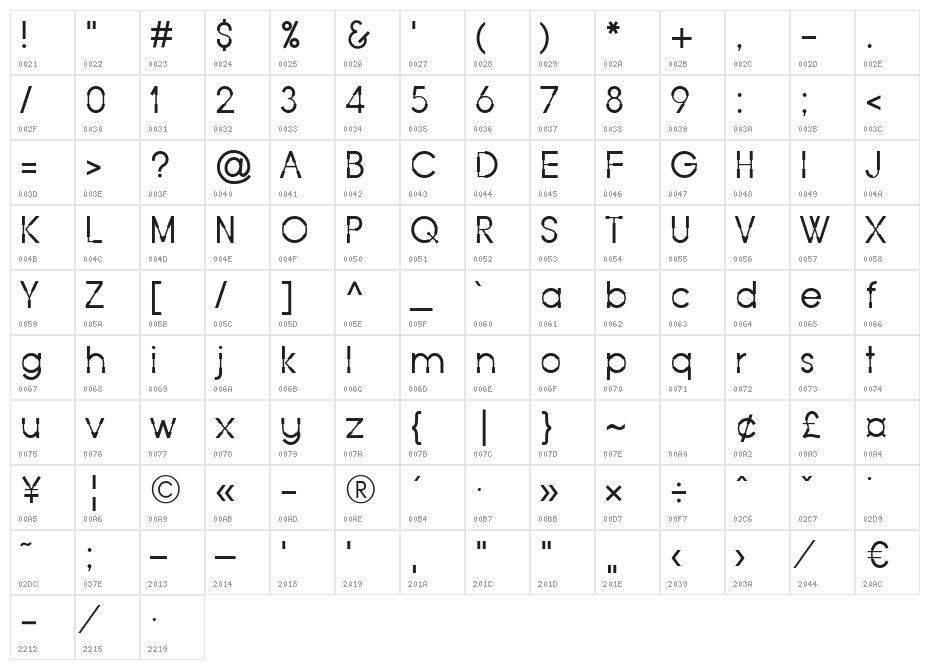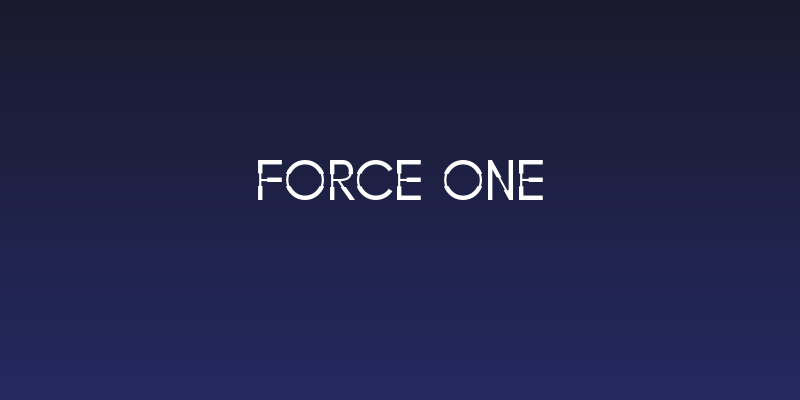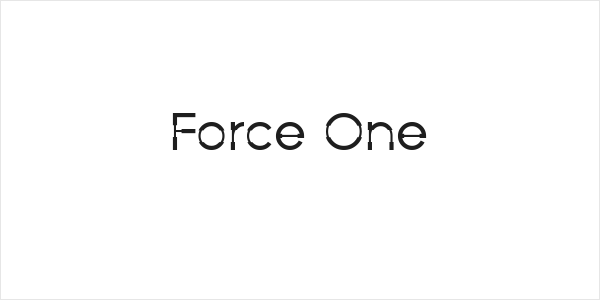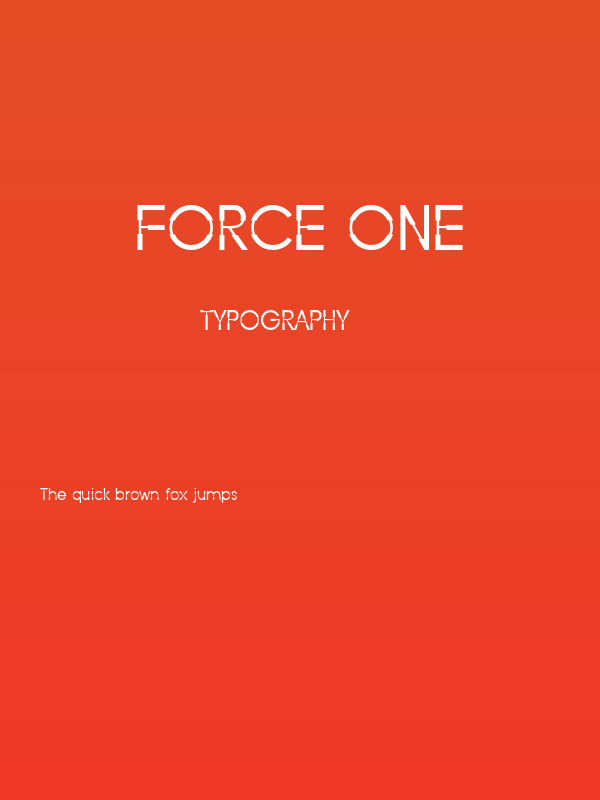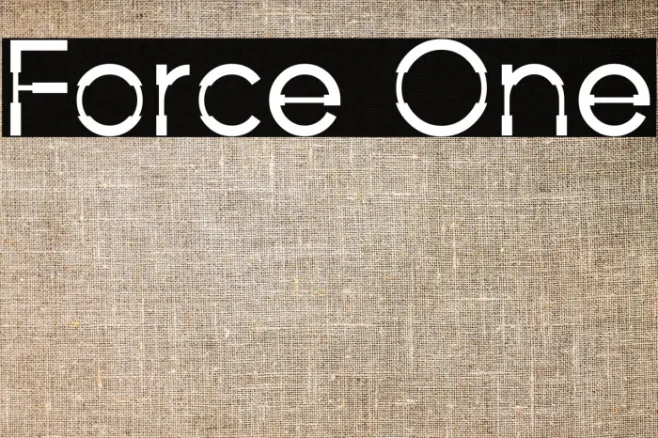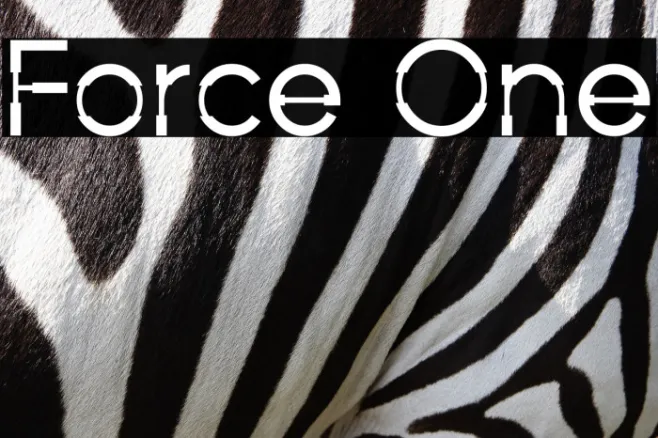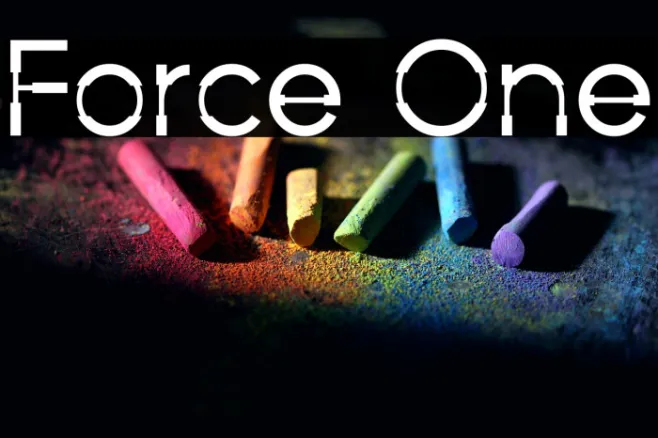
Force One Font
Force One Description
This font features a modern and geometric design with a distinct, futuristic appeal. The characters are constructed with clean, straight lines and sharp angles, giving it a technical and precise look. The uppercase letters are bold and commanding, while the lowercase letters maintain a consistent style with slightly softer edges. The numerals are clear and easy to read, following the same geometric principles. Special characters are uniquely styled, adding to the font's overall distinctiveness. This font is ideal for projects that require a contemporary and edgy aesthetic.
| Use Case | Headlines, Logos, Digital Interfaces |
| Proposed Projects | Ideal for technology branding, modern advertising, digital interfaces, and futuristic design projects. |